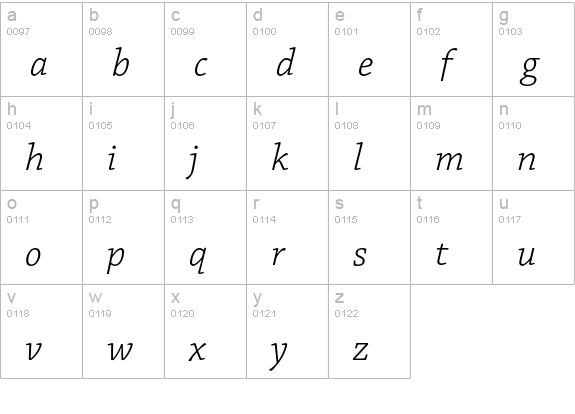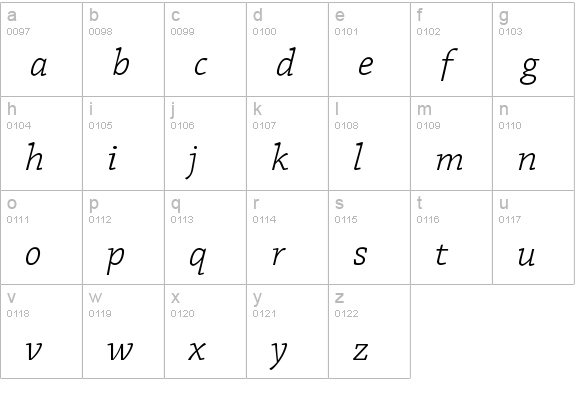
Chaparral Pro Light Italic Caption Font Details
Chaparral Pro Light Italic Caption is a refined, elegant, italic variant in the Chaparral typeface family \xE2\x80\x94 well suited to elegant body text, refined sub-headings, and luxury branding.
Chaparral Pro Light Italic Caption font exudes elegance and sophistication with its delicate curves and subtle slant. Perfect for adding a touch of sophistication to any design project, this font is ideal for captions, subheadings, and other small text elements. Its light weight and italic styling give it a modern and refined look, making it a versatile choice for a wide range of applications. And the best part? Chaparral Pro Light Italic Caption font is available for free download at FontsMarket.com. So you can elevate your designs without breaking the bank. Don't miss out on this opportunity to add a touch of class to your projects with this exquisite font. Download it today and start creating stunning designs with ease.